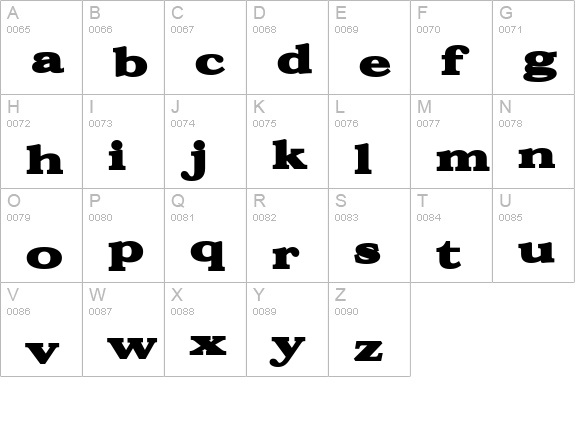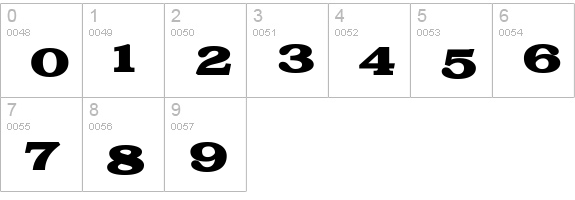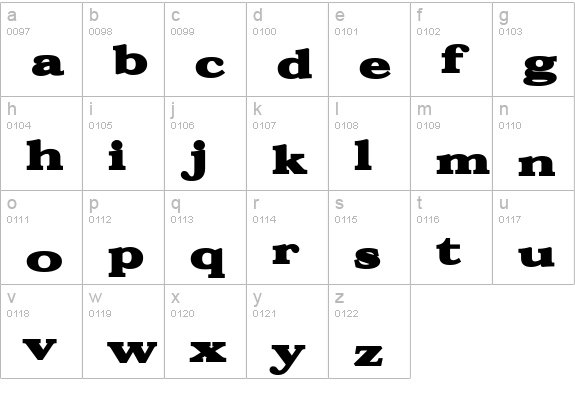
EggCream Font Details
Introducing EggCream font, a delightful and versatile typeface that is sure to add a touch of elegance to your design projects. With its unique blend of modern and vintage aesthetics, EggCream font captures the essence of classic typography with a contemporary twist. This font is the perfect choice for various design applications, including branding, packaging, logos, headlines, and more. Its clean and legible letterforms make it a great option for both print and digital designs, ensuring that your message is conveyed with clarity and sophistication. One of the standout features of EggCream font is that it is available for free download at FontsMarket.com. This means that you can easily access this beautiful typeface and incorporate it into your designs without any additional cost. Whether you are a professional designer or a hobbyist, EggCream font offers a high-quality and accessible option to enhance your creative projects. The versatility of EggCream font is further heightened by its wide range of weights and styles. From thin and elegant to bold and impactful, this font allows you to create diverse typographic compositions that cater to your specific design needs. Additionally, its extensive character set includes various ligatures and alternates, giving you even more creative freedom to experiment and personalize your designs. EggCream font is meticulously crafted with attention to detail, ensuring that each character is visually balanced and harmonious. Its smooth curves and precise letterforms result in a visually pleasing and cohesive typeface that will elevate the aesthetics of any project. In conclusion, EggCream font is a must-have for designers seeking a versatile and visually striking typeface. Its combination of classic and contemporary elements, along with its availability as a free download at FontsMarket.com, makes it a valuable addition to any designer's toolkit. Whether you are working on a branding project, packaging design, or any other creative endeavor, EggCream font is sure to impress with its timeless elegance and effortless charm.